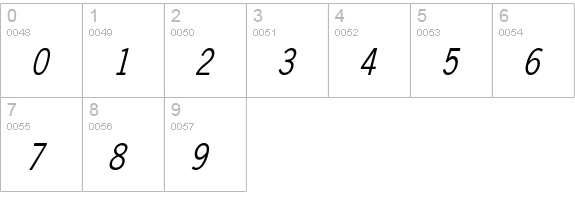
NewsGothicCnd 2 font is a modern and versatile typeface that exudes sophistication and clarity. With its clean lines and balanced proportions, this font is perfect for a wide range of design projects, from editorial layouts to branding materials. The sharp edges and distinct letterforms of NewsGothicCnd 2 give a professional and polished look to any text. The best part is that NewsGothicCnd 2 font is available for free download at FontsMarket.com. You can easily access this high-quality font without any cost, making it a valuable addition to your font collection. Whether you're a designer looking for a sleek and contemporary typeface or a writer in need of a clean and readable font, NewsGothicCnd 2 is sure to meet your needs. Download this font today and elevate your design projects with its timeless elegance and modern appeal.